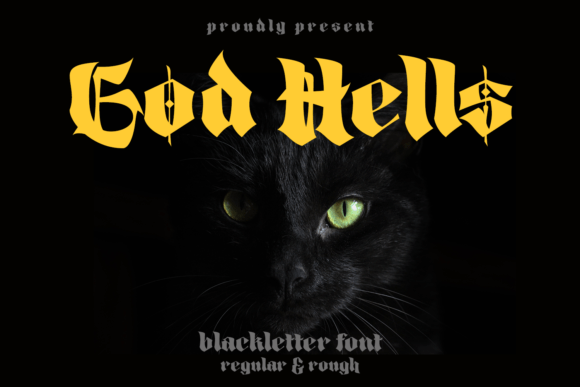
Unleash the God Hells Font, a typographic masterpiece that exudes strength, audacity, and timeless beauty. Immerse yourself in the world of blackletter fonts, where sharp angles, striking lines, and a captivating aura converge to create an unforgettable visual experience. Crafted by the ingenious mind of madeDeduk, God Hells Font is an artistic marvel that transcends ordinary typography, promising to elevate your projects to new heights of visual appeal.
Step into a realm where letters command attention, where every word carries weight, and every design radiates personality. God Hells Font is the perfect companion for product packaging, branding initiatives, and any endeavor that demands a bold, confident typographic statement. Its intricate details and captivating presence will leave an indelible mark on your audience, ensuring that your message is heard loud and clear.
With God Hells Font at your disposal, you unlock a world of creative possibilities. Harness its power to create striking logos that demand attention, craft unique and memorable packaging designs that entice customers, or unleash your creativity in posters, flyers, and social media graphics that captivate and engage. The possibilities are endless, limited only by your imagination.
Indulge in the exquisite beauty of God Hells Font and witness the transformation of your designs. Its striking presence will add a touch of sophistication and elegance to any project, while its bold and commanding nature will leave a lasting impression on your audience. Embrace the power of typography and elevate your creations to new heights with God Hells Font, the ultimate expression of strength, confidence, and timeless appeal.